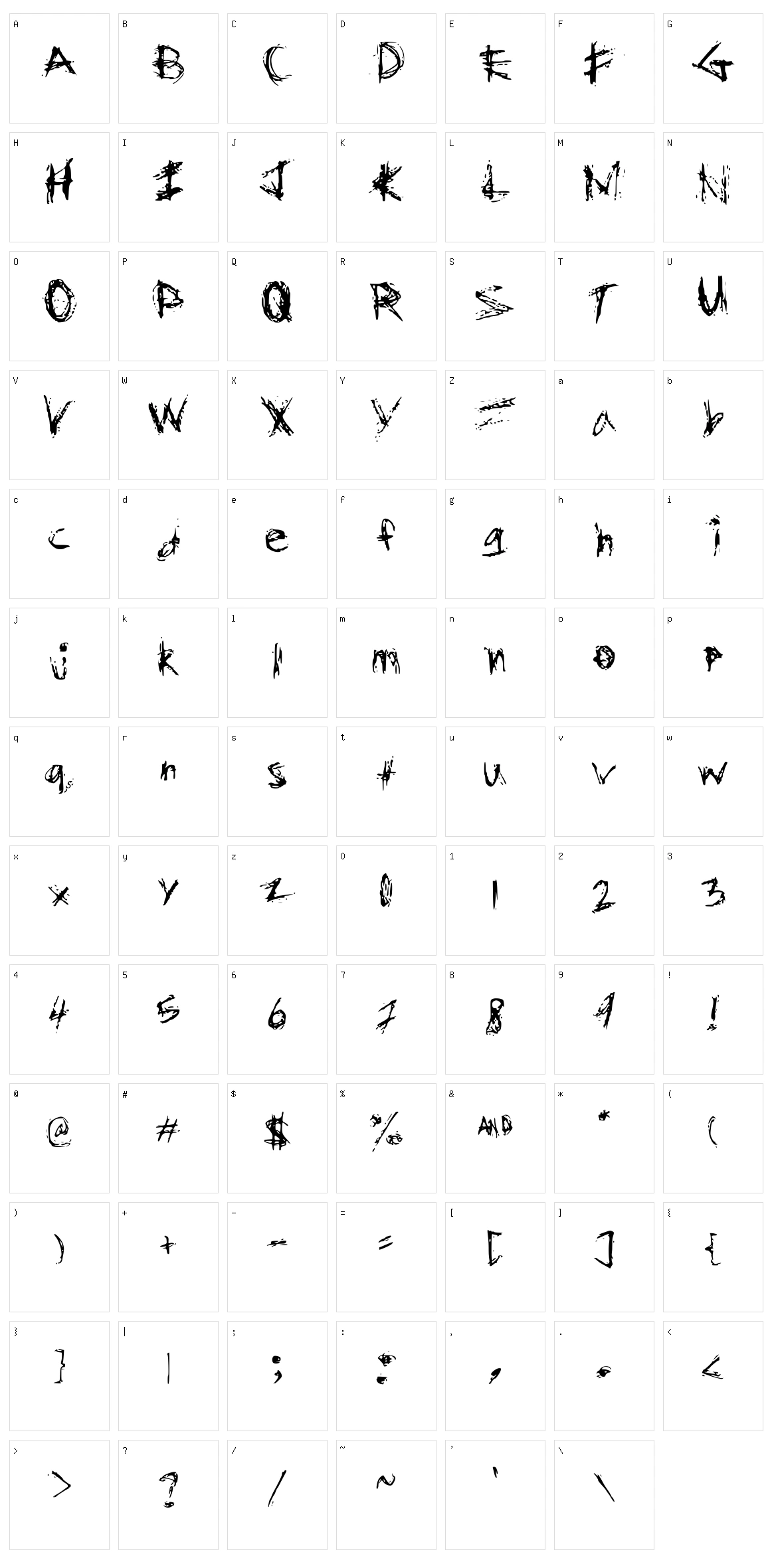
The free font Ghost Chase is carefully designed by 2Of1Kind, showcasing a thoughtful balance of creativity and usability and falls under the Horror font style. When you download the ZIP file, it contains only 36.03 KB of font files, making it lightweight and quick to download. Please review the license details below to understand permitted usage and distribution rights. If license information is not available, we recommend using this font for personal projects only or contacting the author directly for commercial usage permissions.